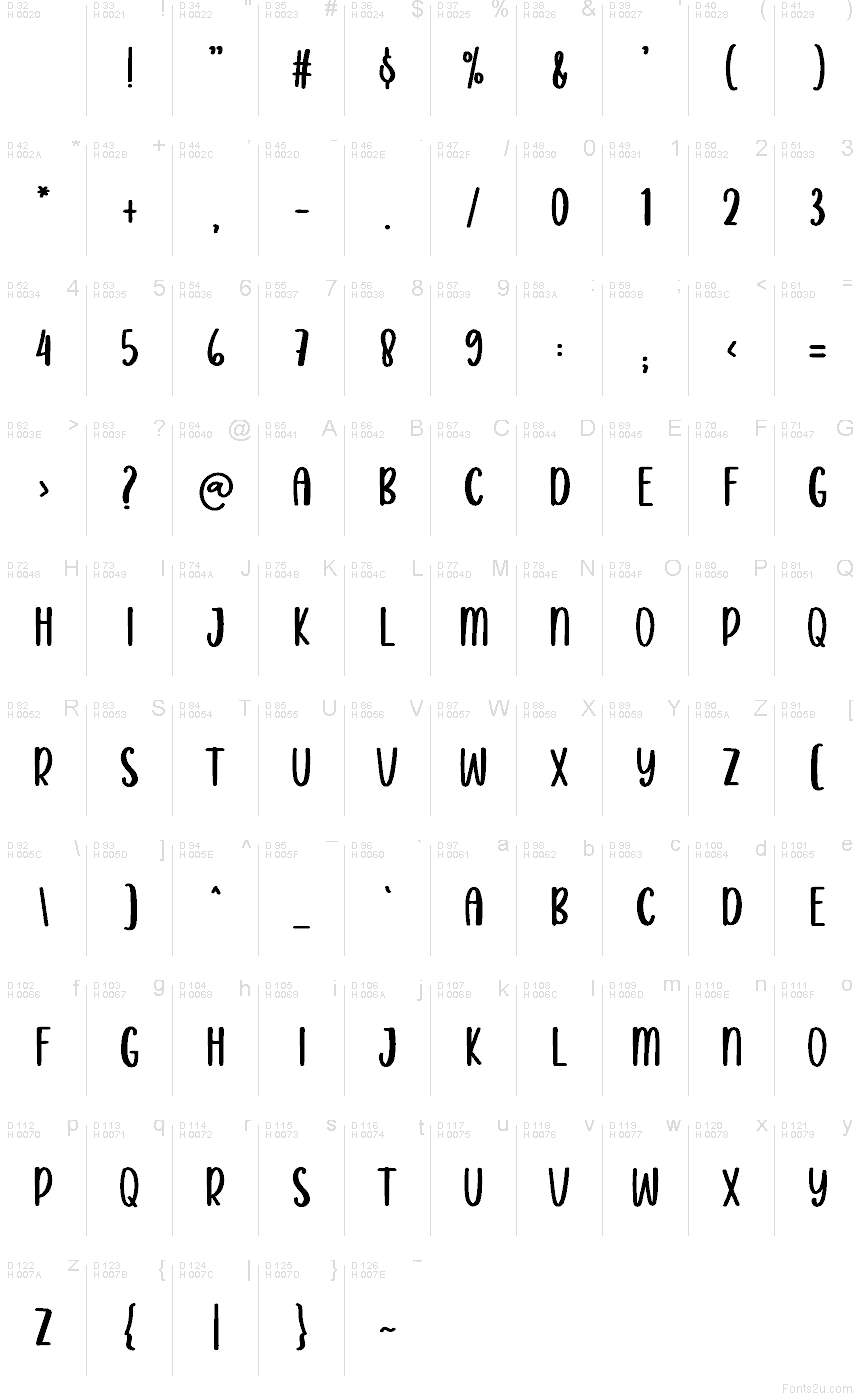
Amazing School
Amazing School font by Inermedia Studio is a free brush font that captures the fun, wobbly energy of handwritten classroom notes. Its tall, rounded letters feel like they’ve been painted with a steady marker—bold enough to read at a glance, but soft and friendly rather than shouty. The strokes are even and slightly bouncy, so text feels playful and approachable while still staying neat and orderly.
Using Amazing School, this free font shines on kids’ book covers, classroom posters, flashcards, birthday invitations, craft labels, and playful social graphics. It reads clearly at larger sizes, making it a natural fit for headings and short phrases rather than long paragraphs. Pair it with a simple sans serif for body text, and let Amazing School handle the titles, labels, and big, happy words.